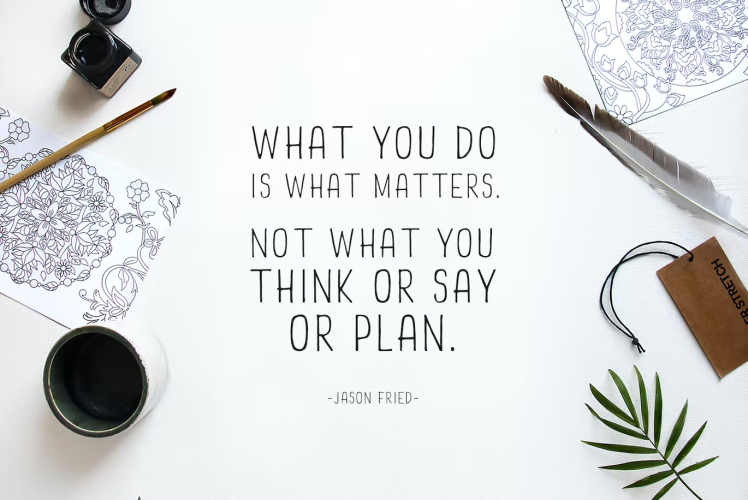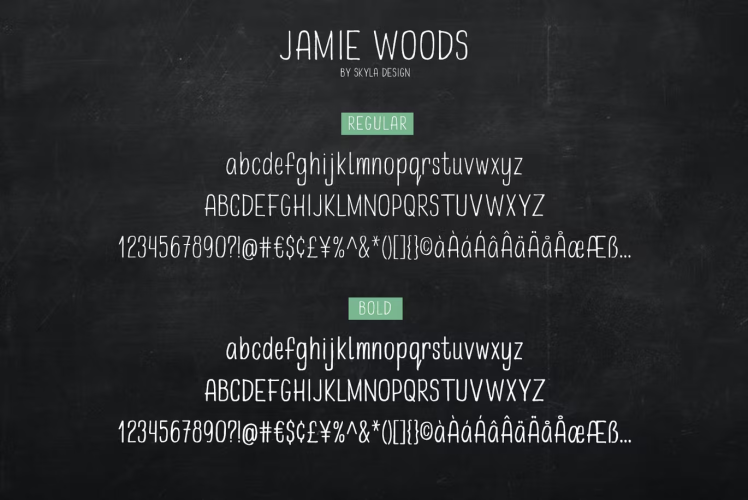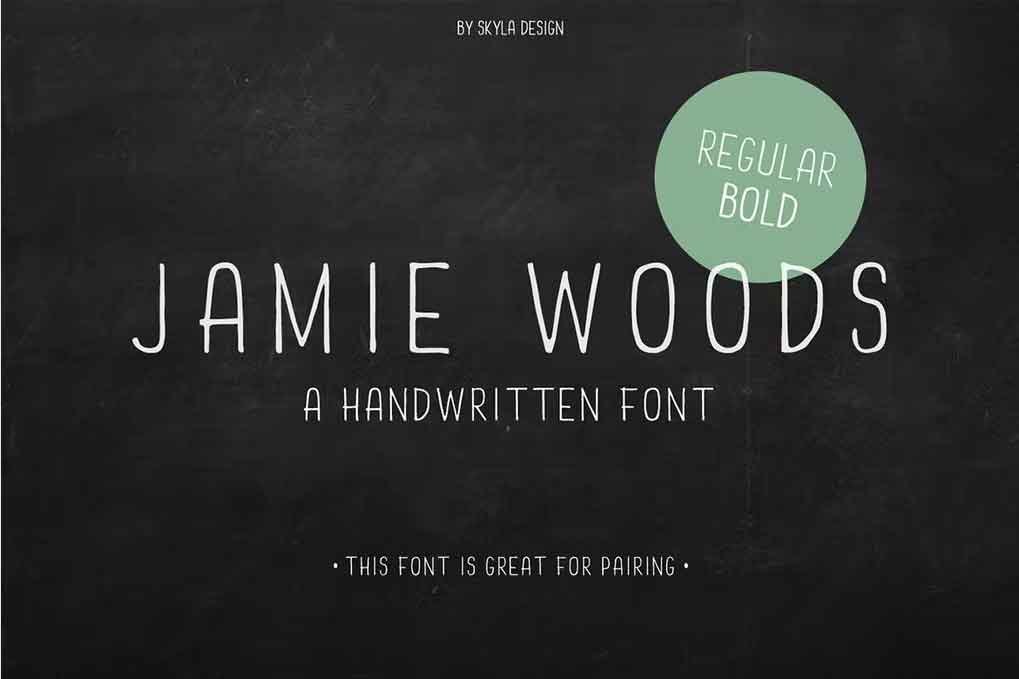
Skinny condensed Font
Jamie Woods is a condensed, handwritten font which comes in a Regular & Bold version. It’s a great font to use for pairing with other fonts and will look great on all yo…
Jamie Woods is a condensed, handwritten font which comes in a Regular & Bold version. It’s a great font to use for pairing with other fonts and will look great on all your designs and branding materials.
Where Skinny condensed Font works best
Skinny condensed Font stays legible at small sizes, which makes it a strong choice for navigation, buttons and dashboards in web design and app interfaces.
Clean sans serifs like Skinny condensed Font are the default language of SaaS, fintech and product branding.
What is Skinny condensed Font good for?
Skinny condensed Font is a Sans Serif Fonts typeface tagged Bold, Branding, Condensed, Handwritten. It works well for headlines, logos, posters, social media graphics and branding projects that need a distinctive sans serif fonts look.